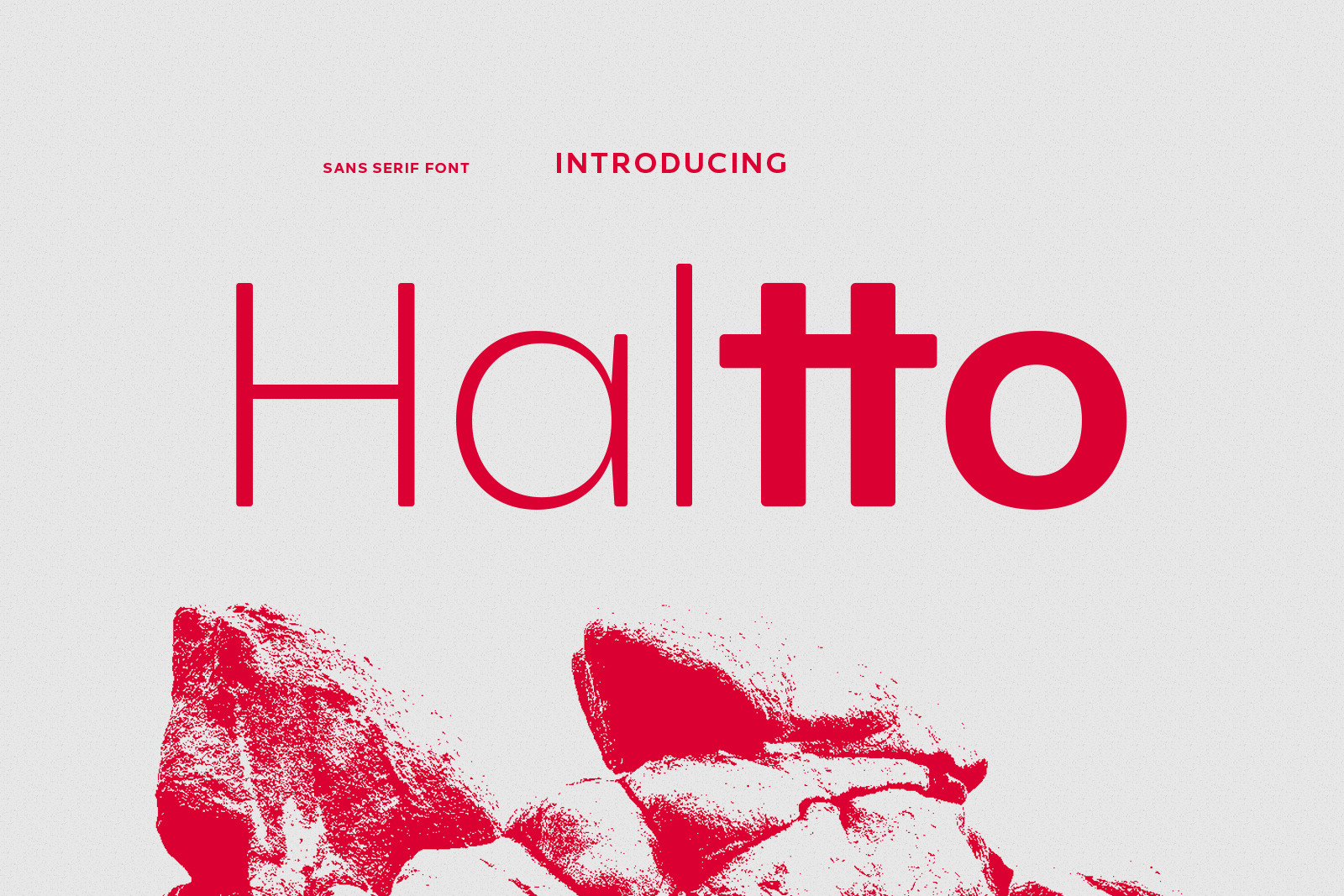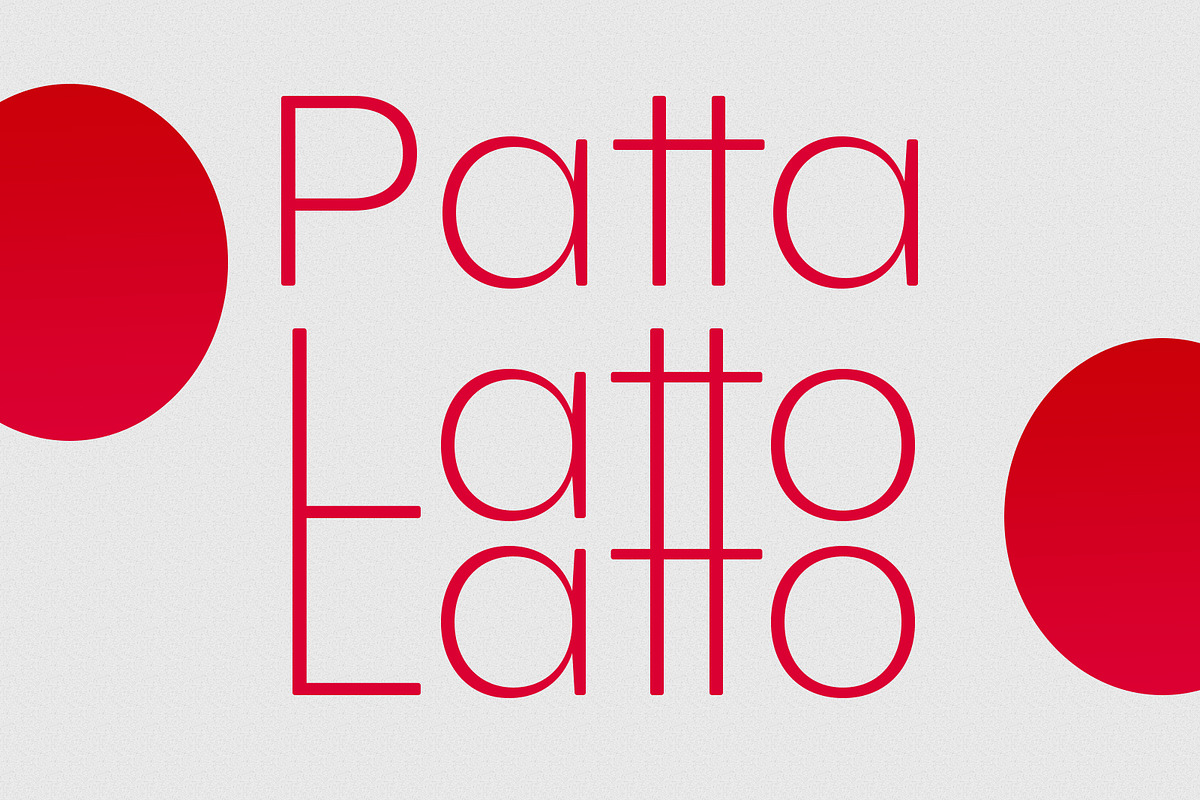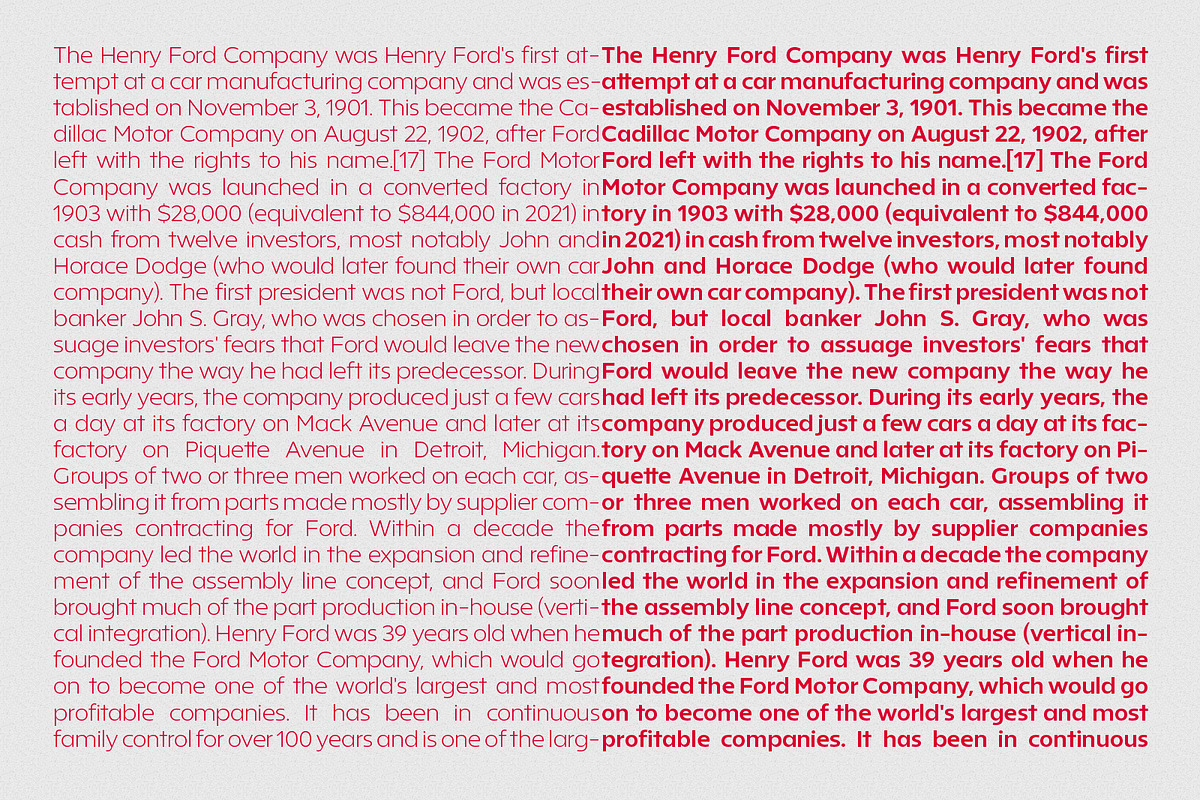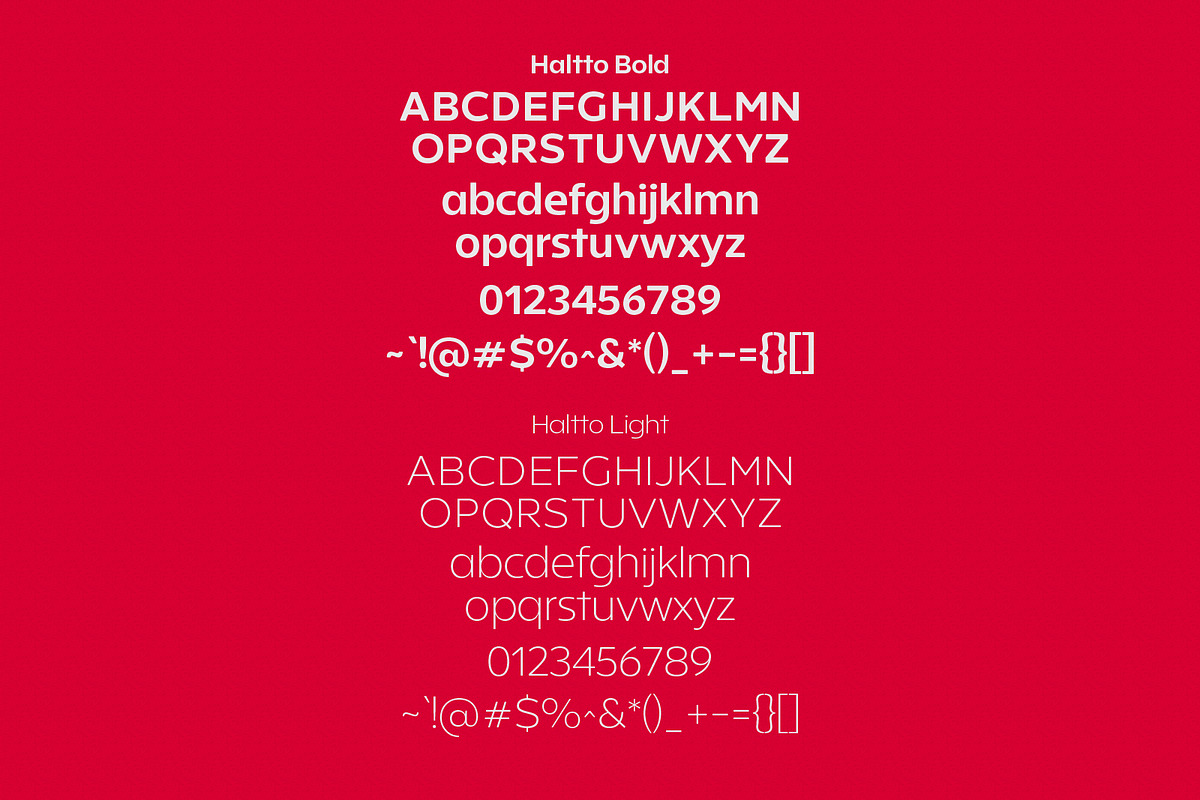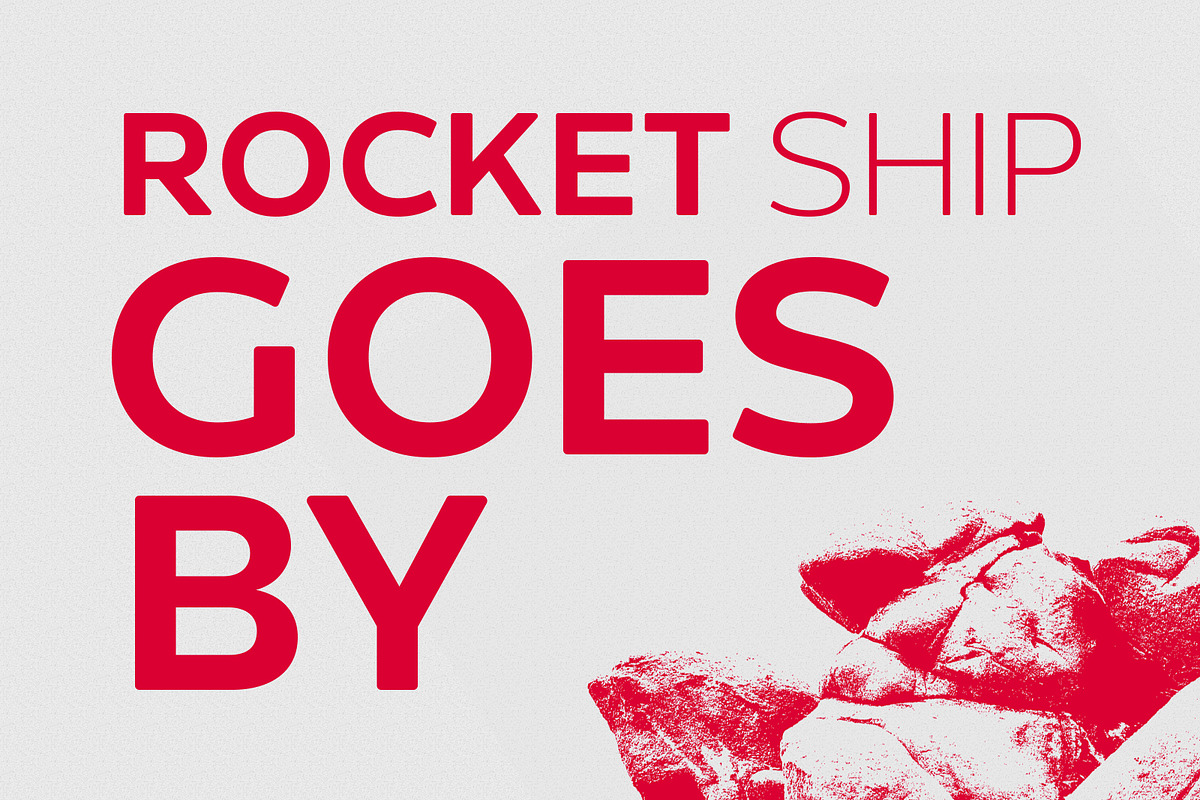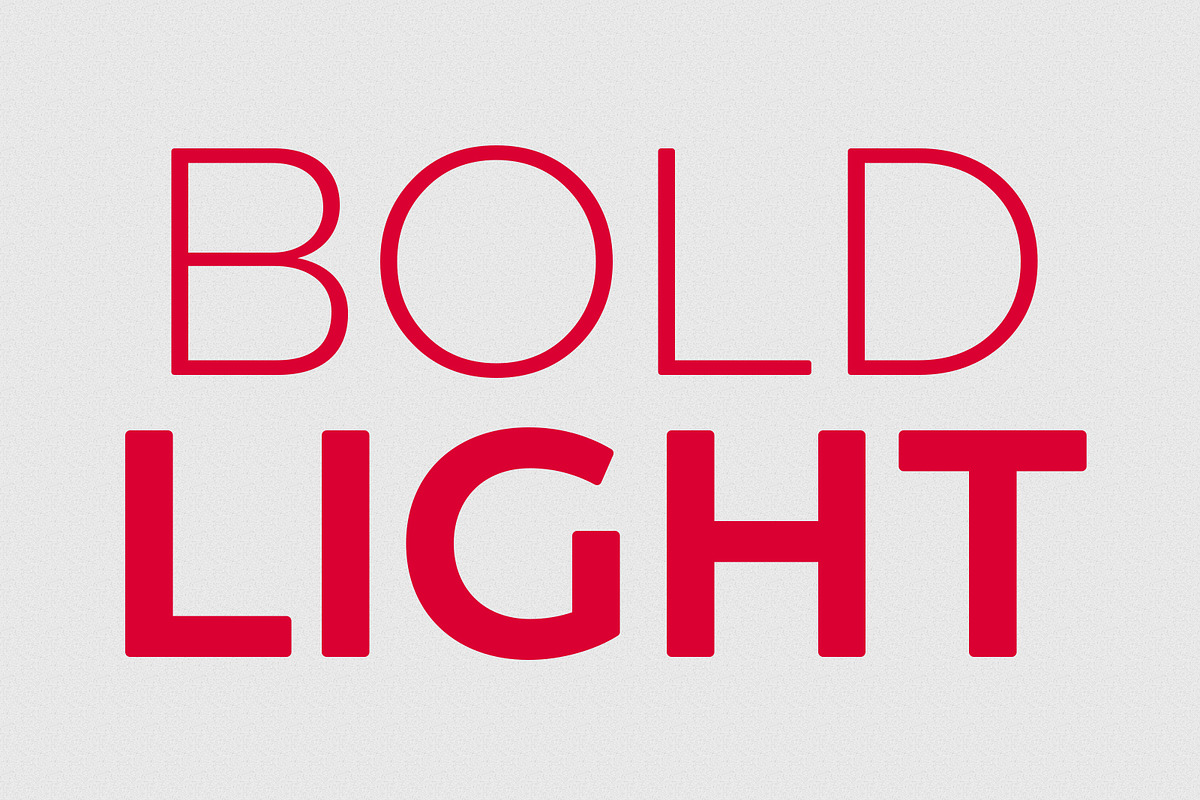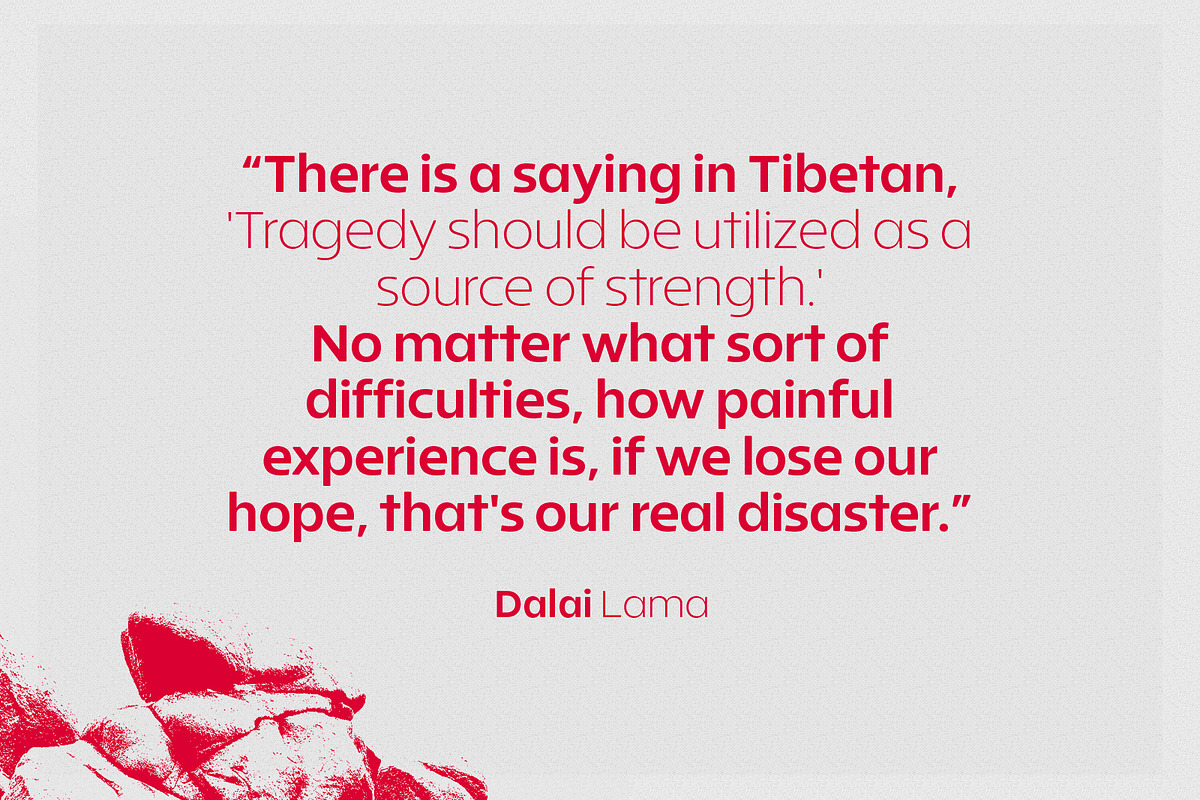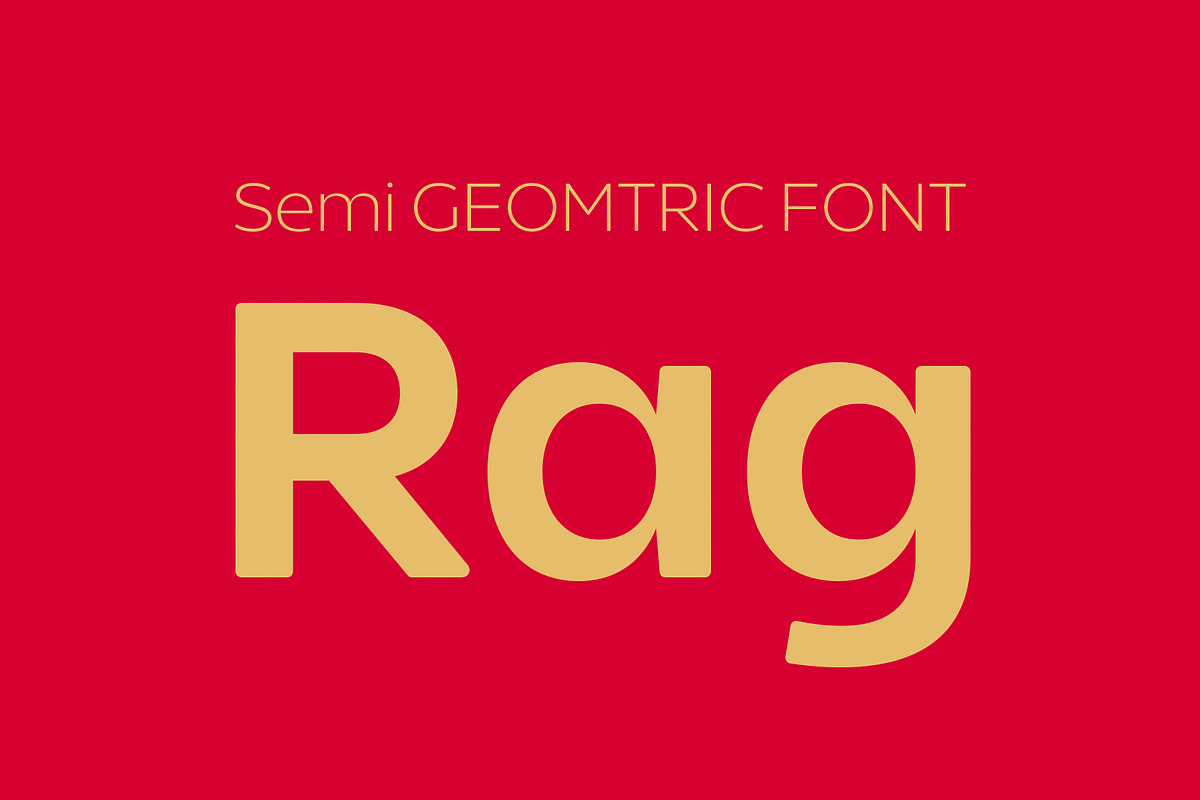
Haltto Sans Serif Font
Haltto is a geometric based sans serif font. 2 weights stroke, fun character with a bit of ligatures and alternates. To give you an extra creative work. Haltto font support multilingual more than 100+ language. This font is good for logo design, Social media, Movie Titles, Books Titles, a short text even a long text letter and good for your secondary text font with script or serif. Make a stunning work with Haltto font.